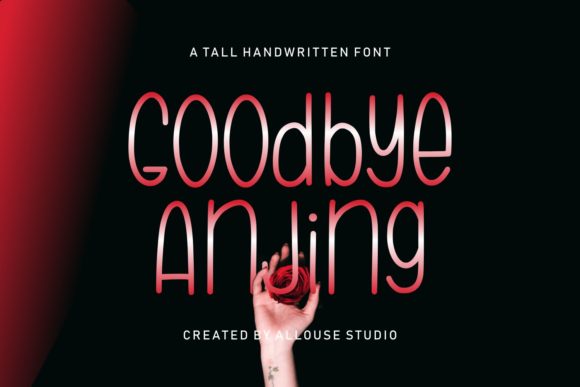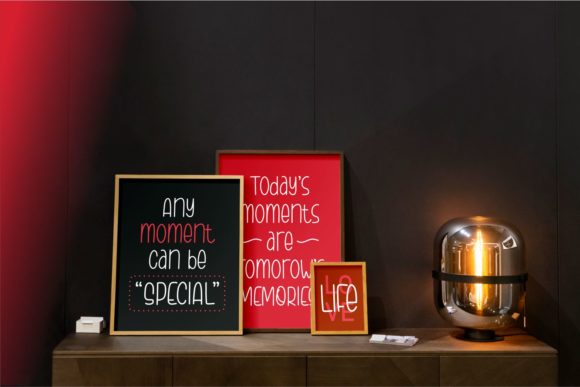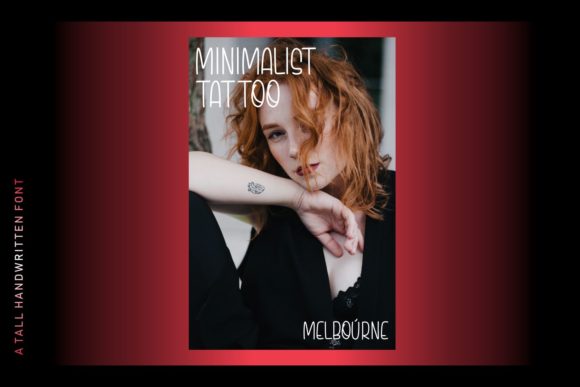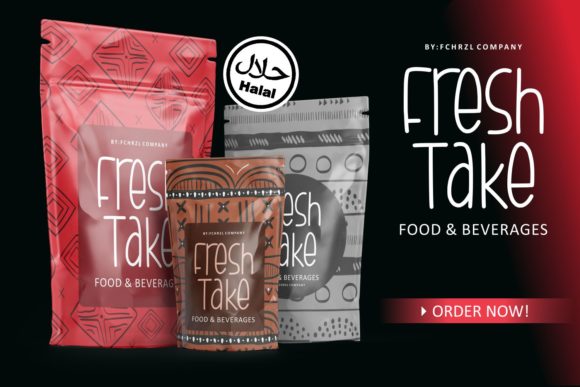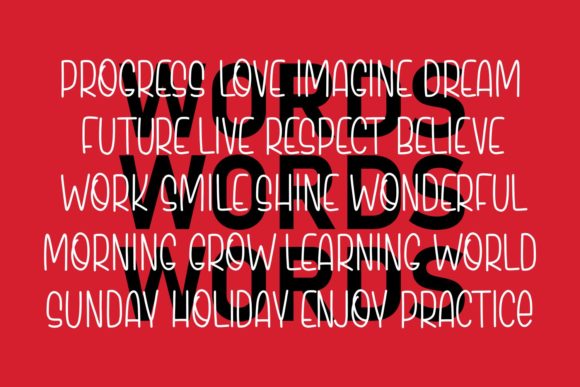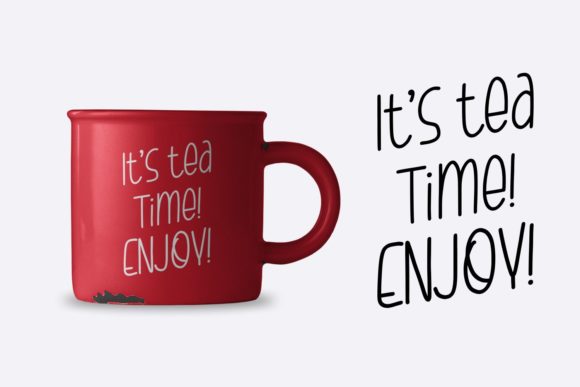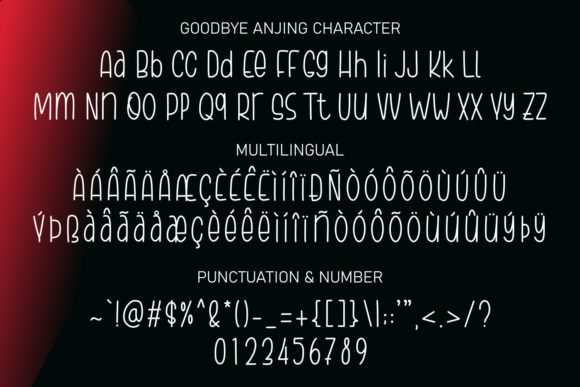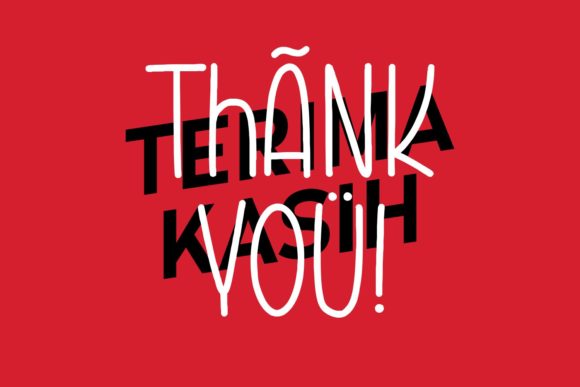
Goodbye Anjing Font
About Goodbye Anjing Font
Goodbye Anjing is a simple and thin lettered handwritten font. This original look will appeal to a wide range of crafty ideas, from letterheads and titles, to stationery.